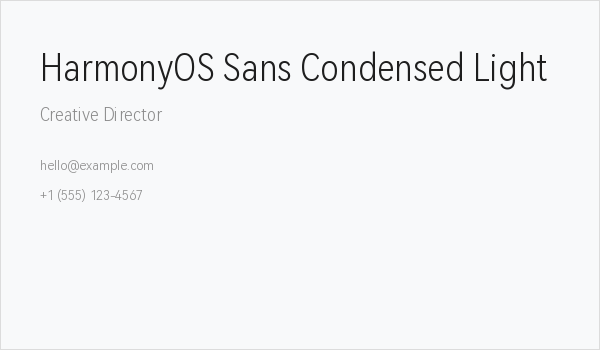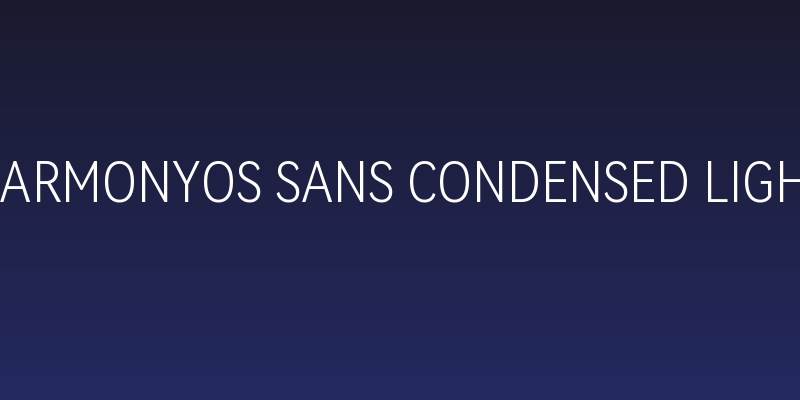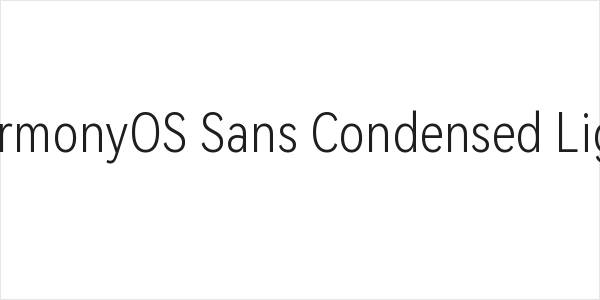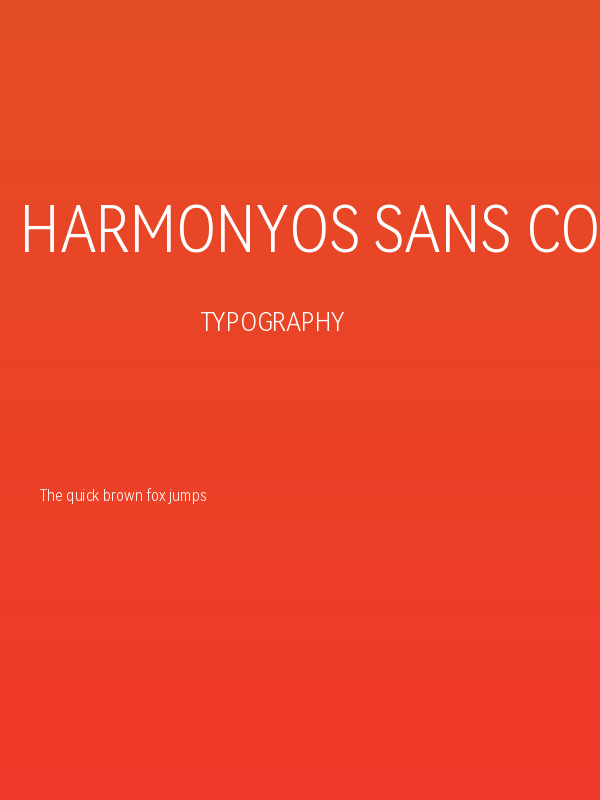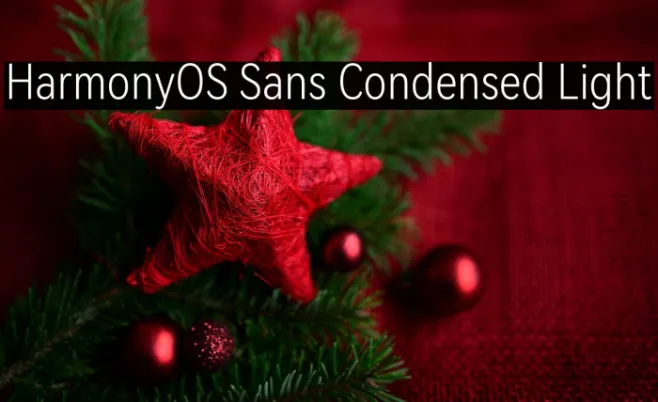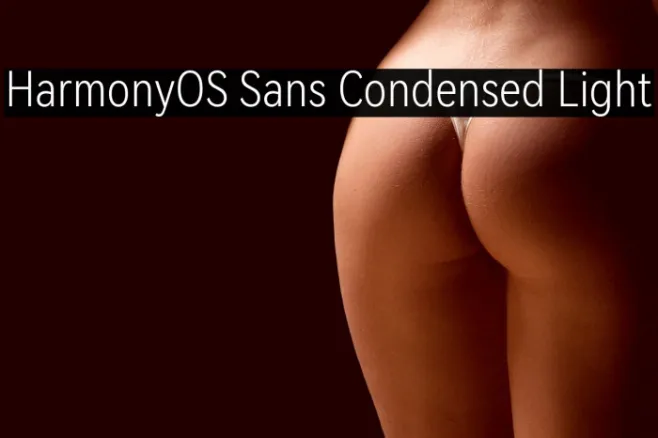
HarmonyOS Sans Condensed Light Font
HarmonyOS Sans Condensed Light Description
This font presents a clean and modern sans-serif style with a condensed structure, offering a sleek and efficient use of space. The characters are uniformly designed with a light weight, providing an airy and minimalistic appearance. The uppercase and lowercase letters maintain a consistent height and width, ensuring readability and balance. The numerals are straightforward and align well with the overall design, while the special characters are clearly defined, enhancing the font's versatility. The overall aesthetic is contemporary, making it suitable for a variety of digital and print applications.
| Use Case | Headlines, Body text, User interfaces |
| Proposed Projects | Ideal for user interfaces, mobile applications, websites, and modern branding projects. |